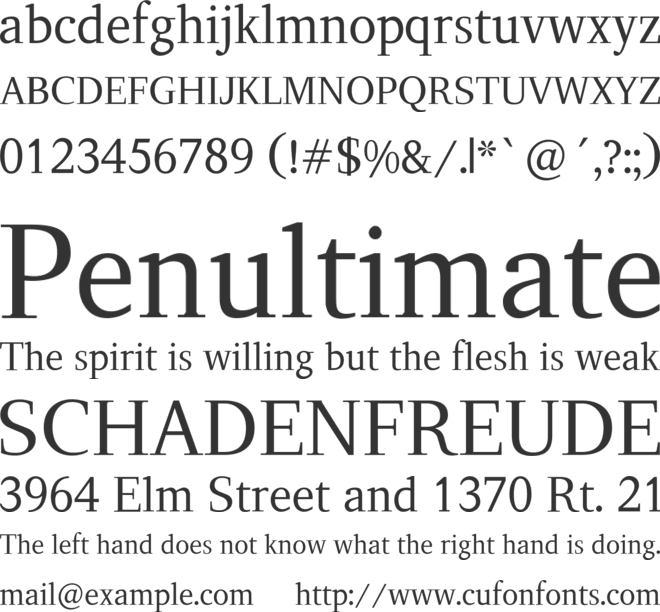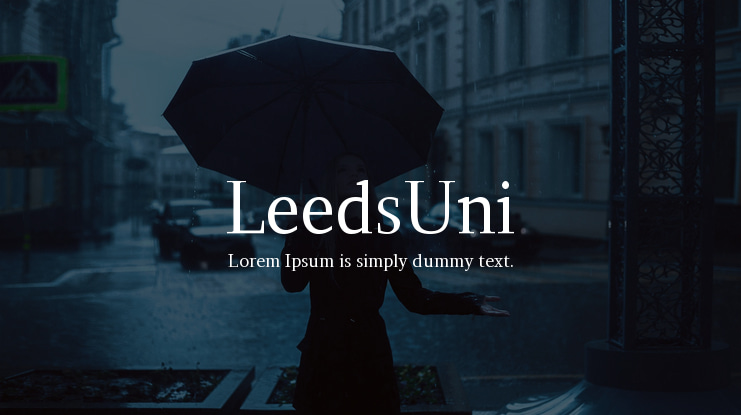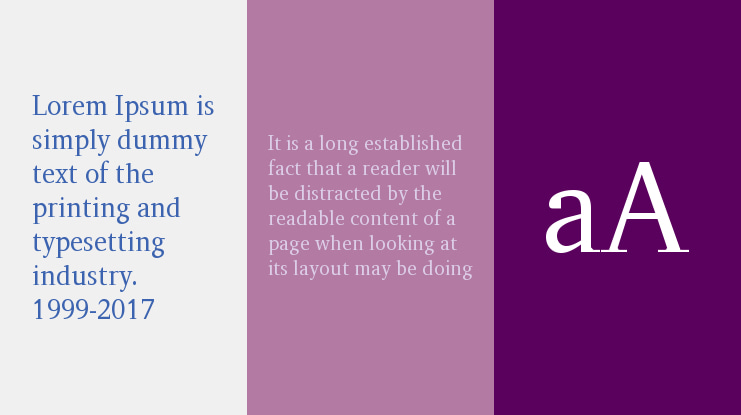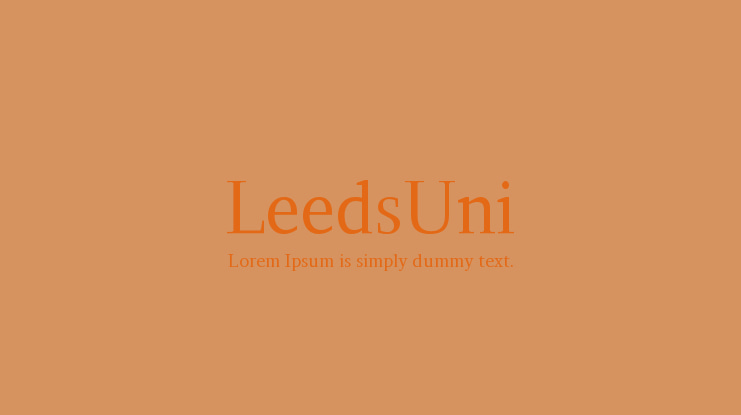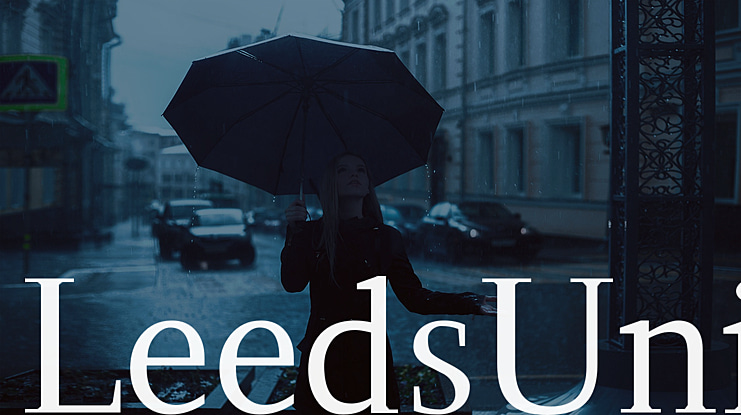
LeedsUni Font
The latest version of the LeedsUni freeware font, compatible with version 2.0 of the Medieval Unicode Font Inititative (MUFI), as well as the latest version of Unicode.